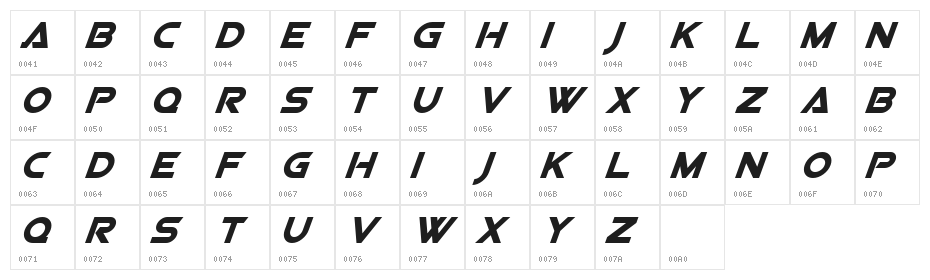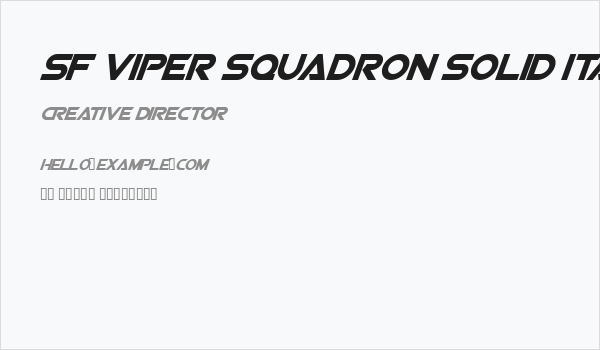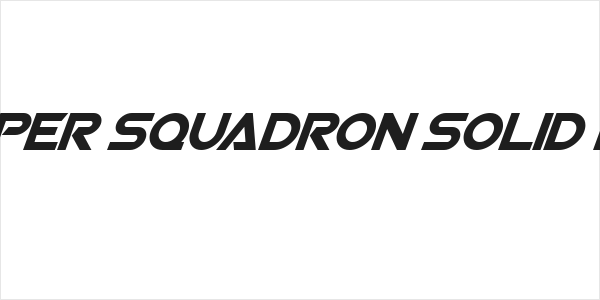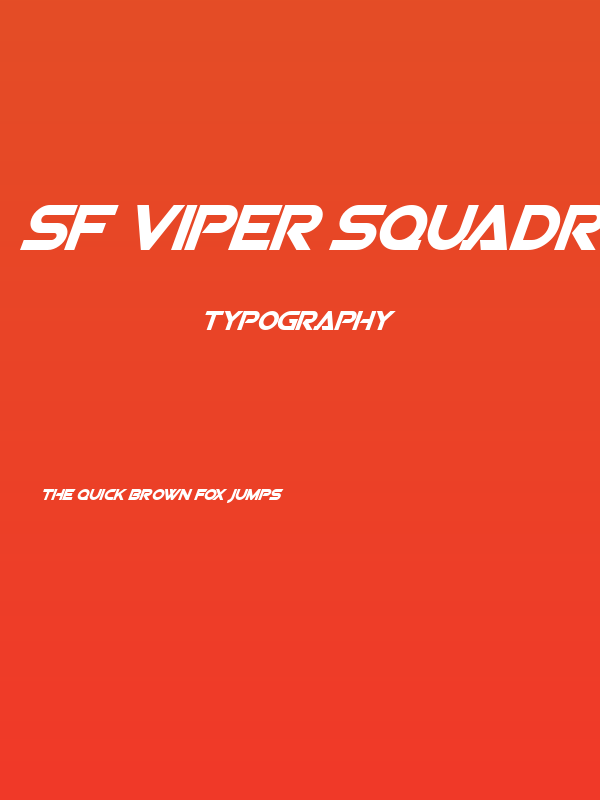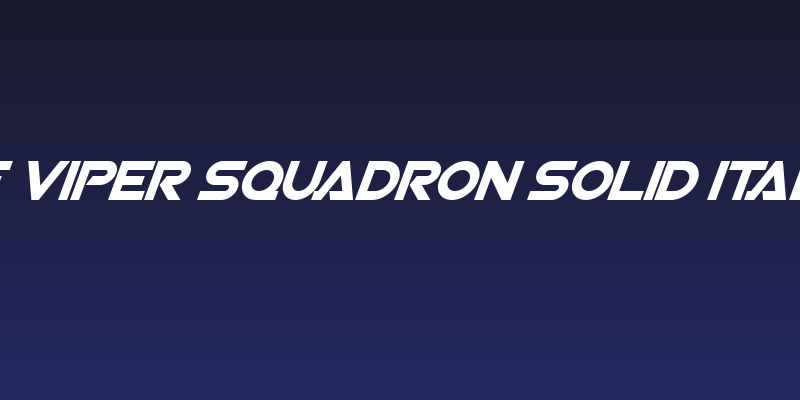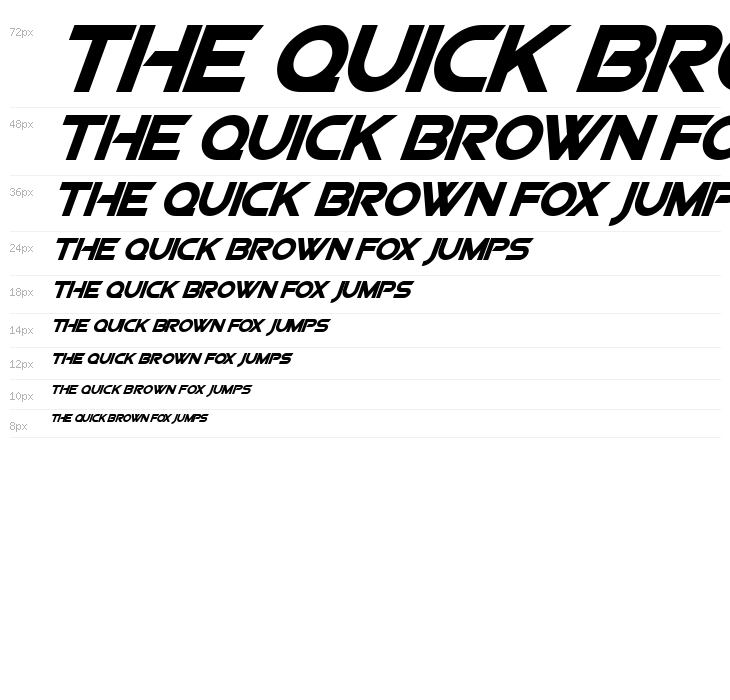
SF Viper Squadron Solid Italic Font
SF Viper Squadron Solid Italic Description
This font features a bold and dynamic design with a strong italic slant, giving it a sense of motion and speed. The characters are solid and robust, with sharp angles and clean lines that convey a futuristic and high-tech aesthetic. The uppercase letters are particularly striking, with a consistent width and height that create a cohesive and uniform appearance. The font's style is reminiscent of sci-fi and action themes, making it ideal for projects that require a modern and edgy look. The absence of lowercase letters and special characters suggests a focus on impactful headlines and titles.
| Proposed Projects | Ideal for sci-fi themed posters, video game titles, and action movie logos. |